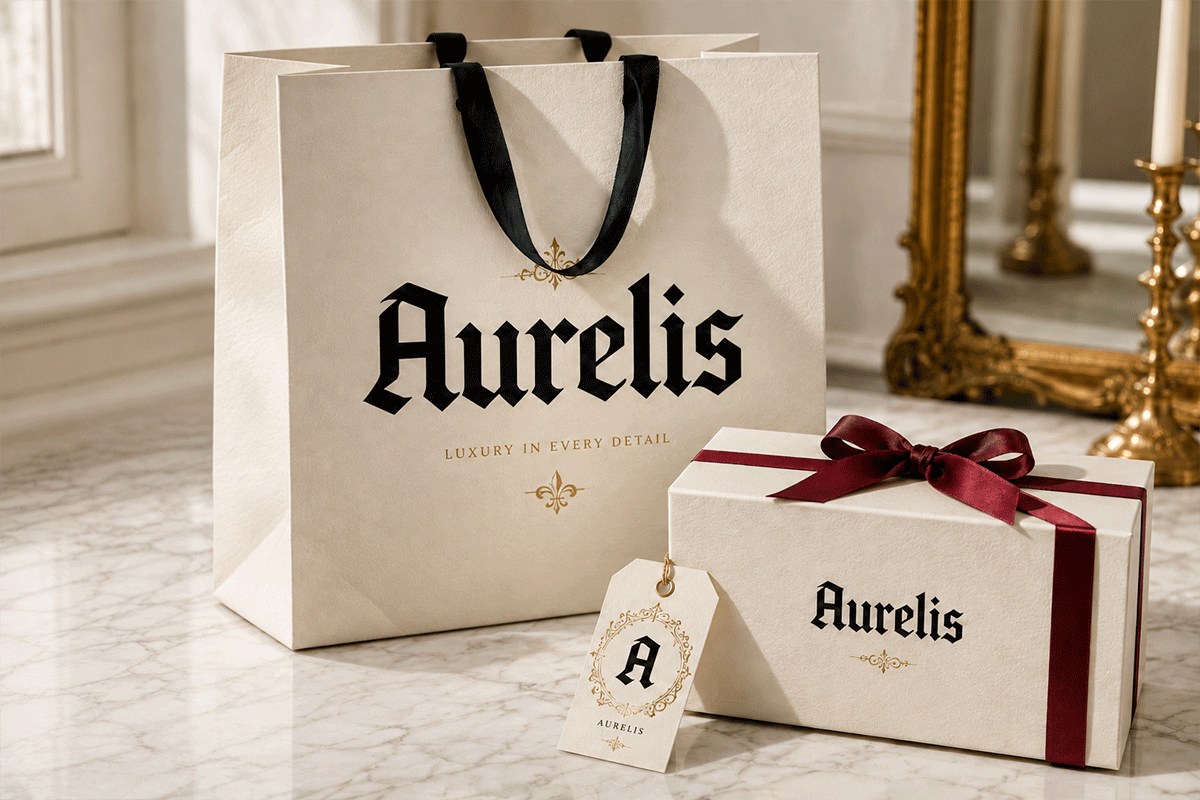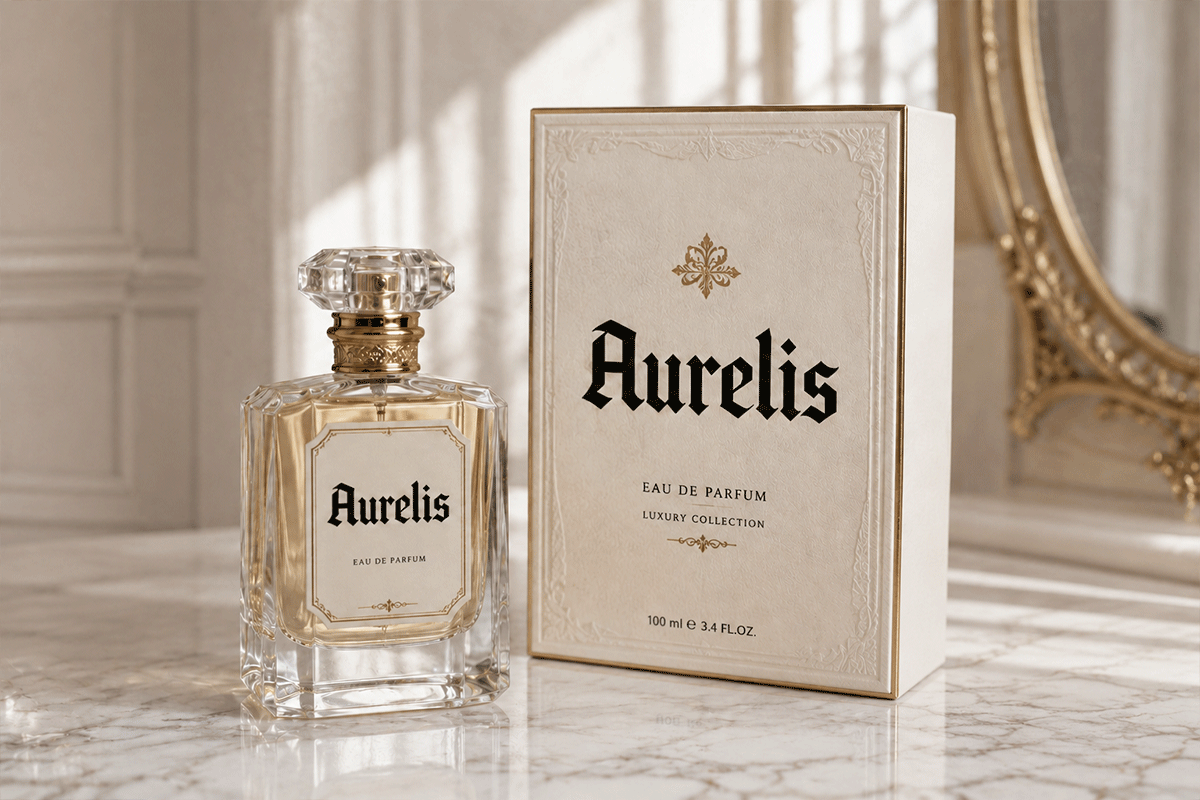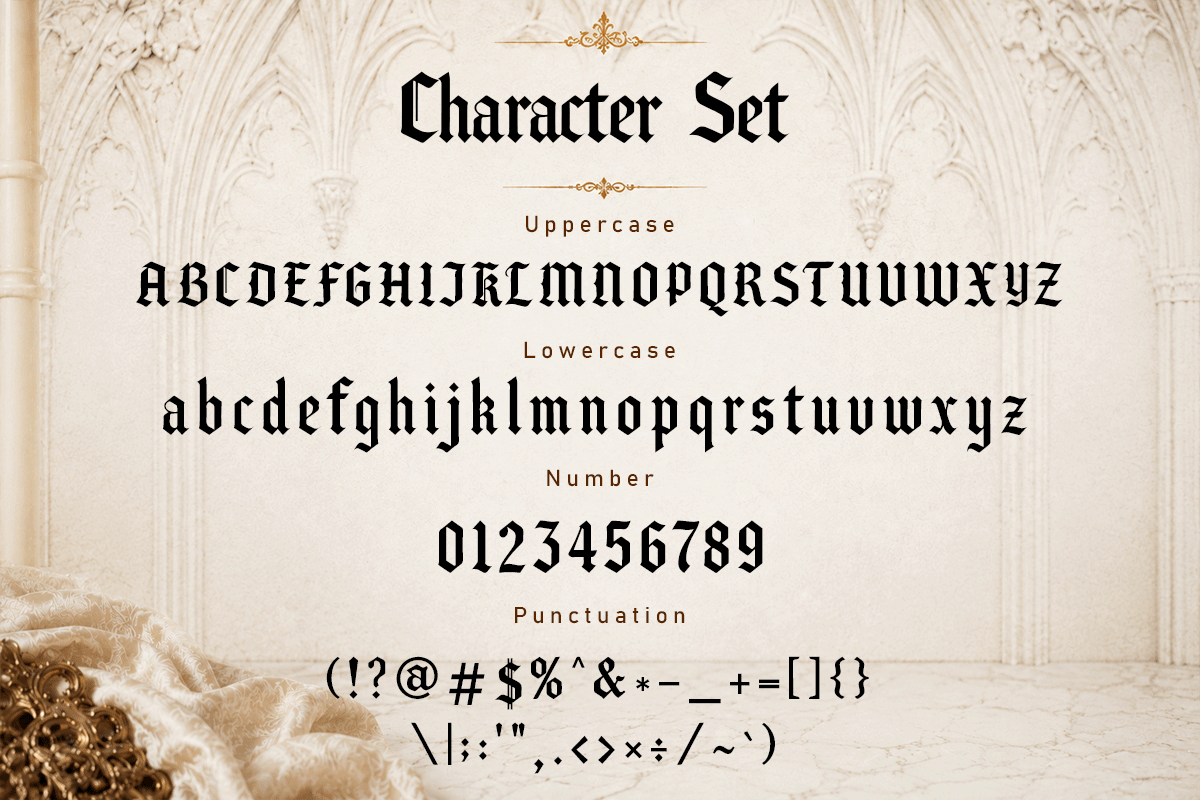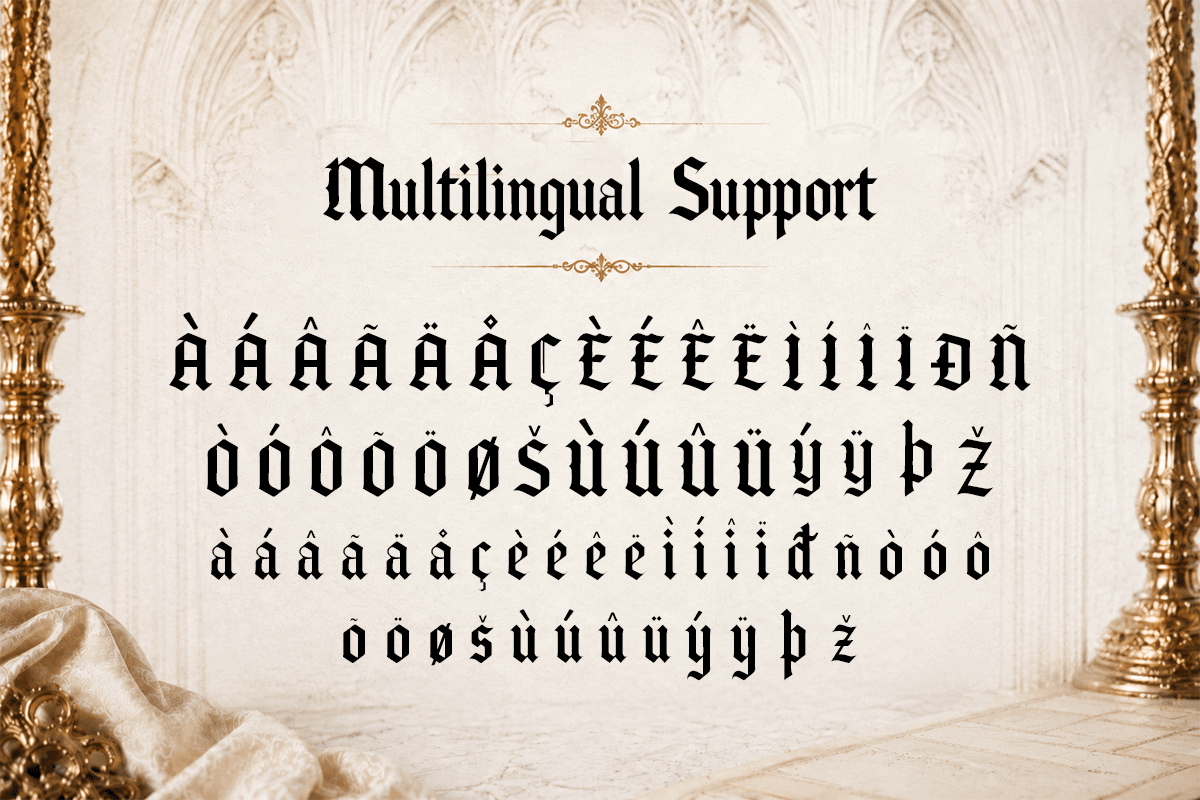
Aurelis A Modern Luxury Gothic Font
Aurelis A Modern Luxury Gothic Font is a striking luxury gothic display font inspired by classic blackletter typography, historical manuscripts, and elegant European architecture. Its sharp terminals, dramatic strokes, and distinctive letterforms create a powerful visual presence while maintaining a sophisticated and premium character.
Designed for projects that need a strong sense of heritage, mystery, and prestige, Aurelis A Modern Luxury Gothic Font works beautifully for luxury branding, fashion labels, book covers, editorial headlines, packaging, posters, logos, invitations, merchandise, album artwork, and premium product designs.
The combination of traditional gothic influences and a cleaner contemporary approach makes Aurelis A Modern Luxury Gothic Font suitable for both dramatic vintage compositions and modern high-end identities. Use it at large sizes to showcase its architectural shapes and memorable personality.
Perfect for designers looking for a gothic display font that feels majestic, timeless, luxurious, and commanding.